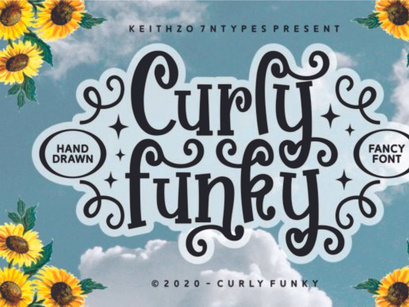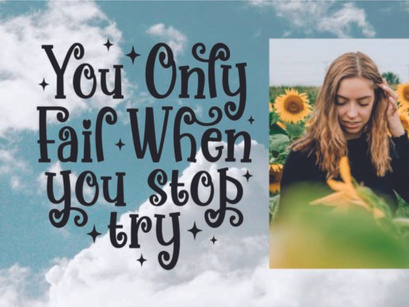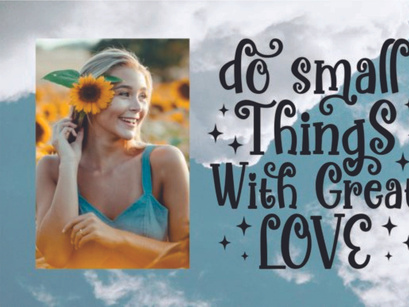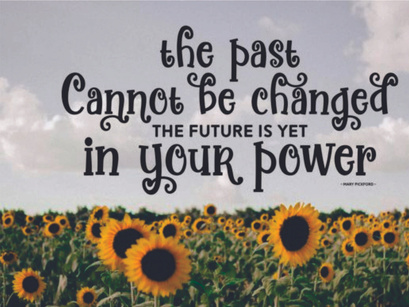
Curly Funky is a sweet and dainty handwritten font, created to bring a touch of originality to each design you are looking to create. This font is PUA encoded which means you can access all of the glyphs and swashes with ease!